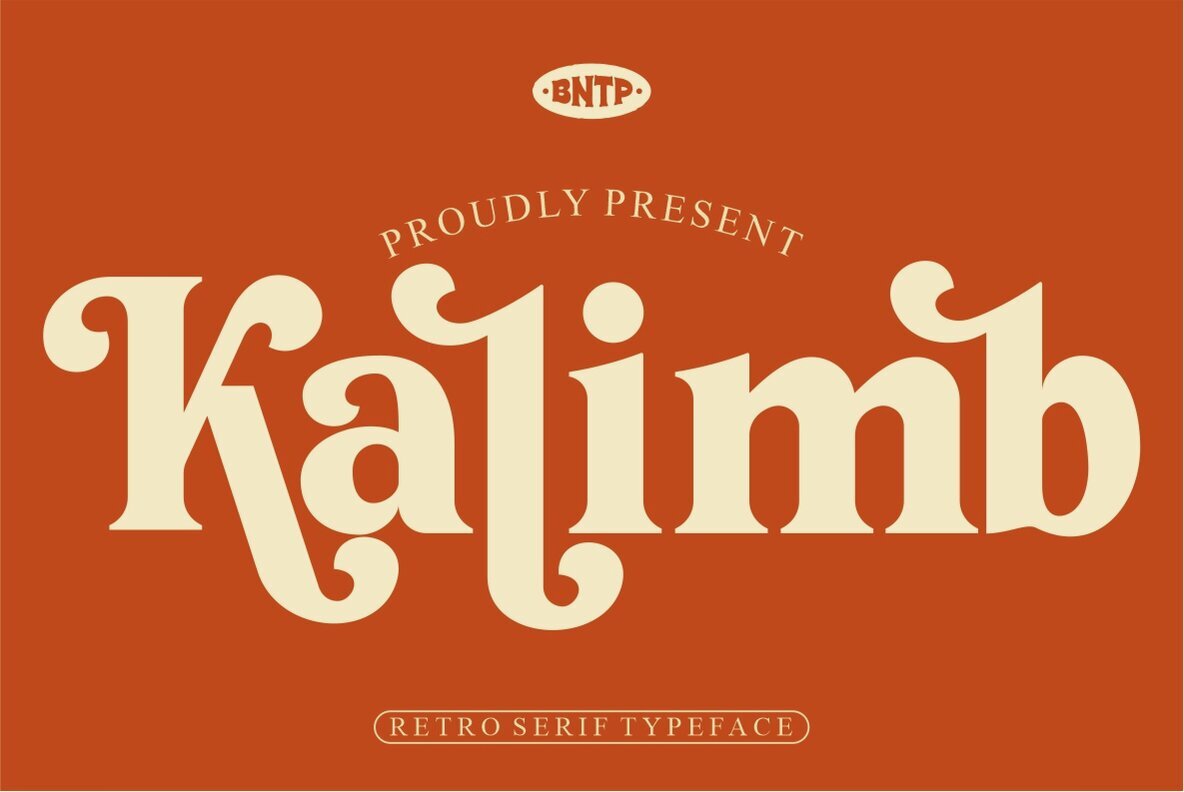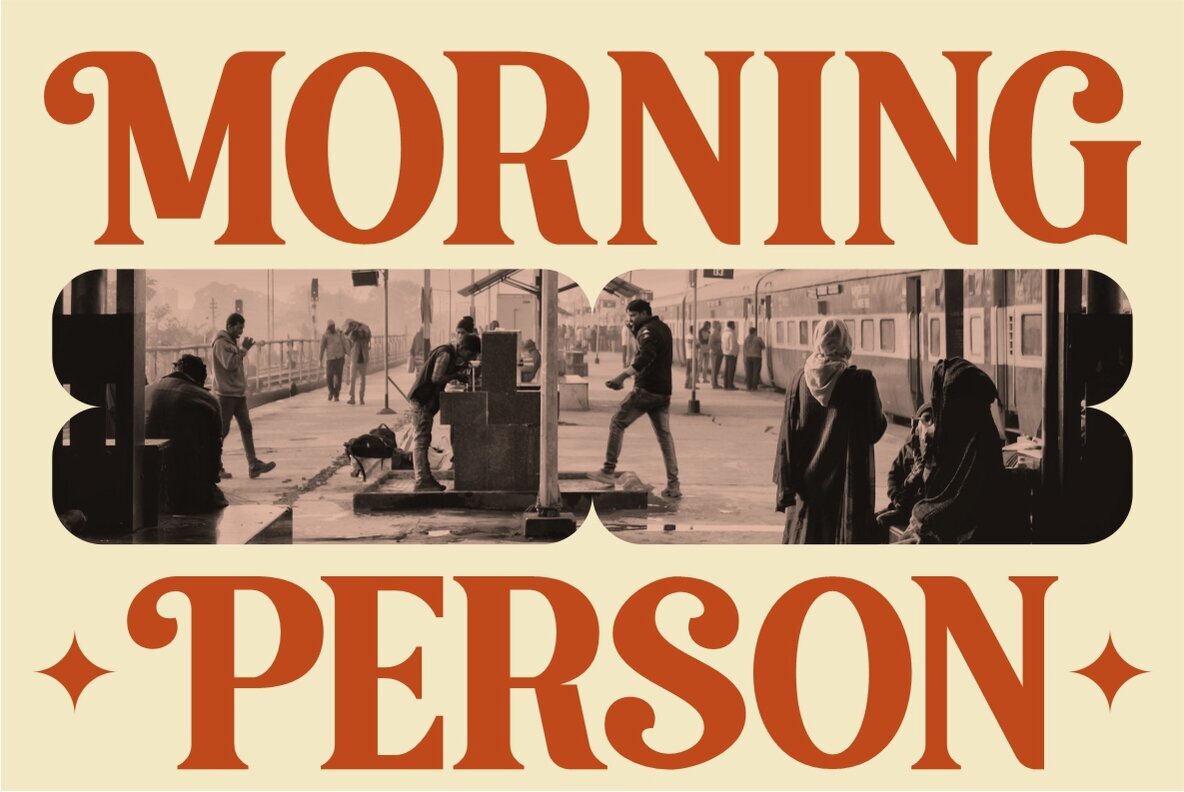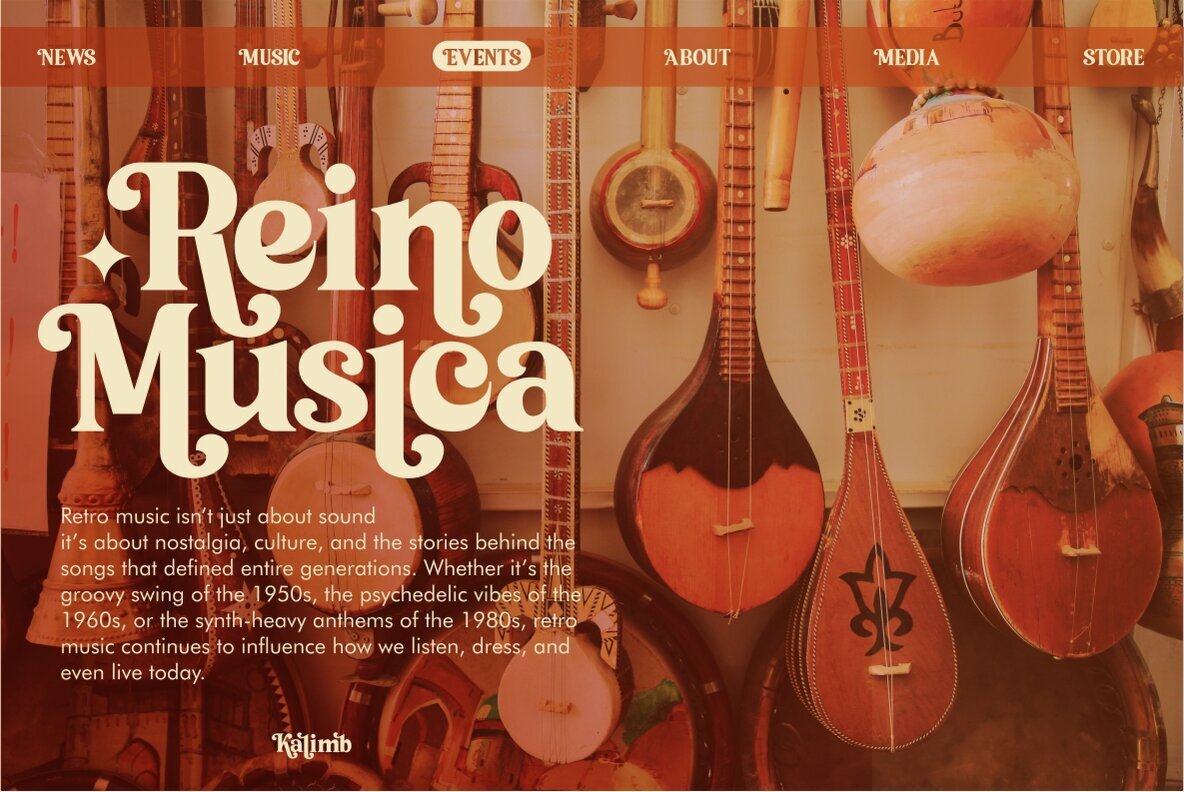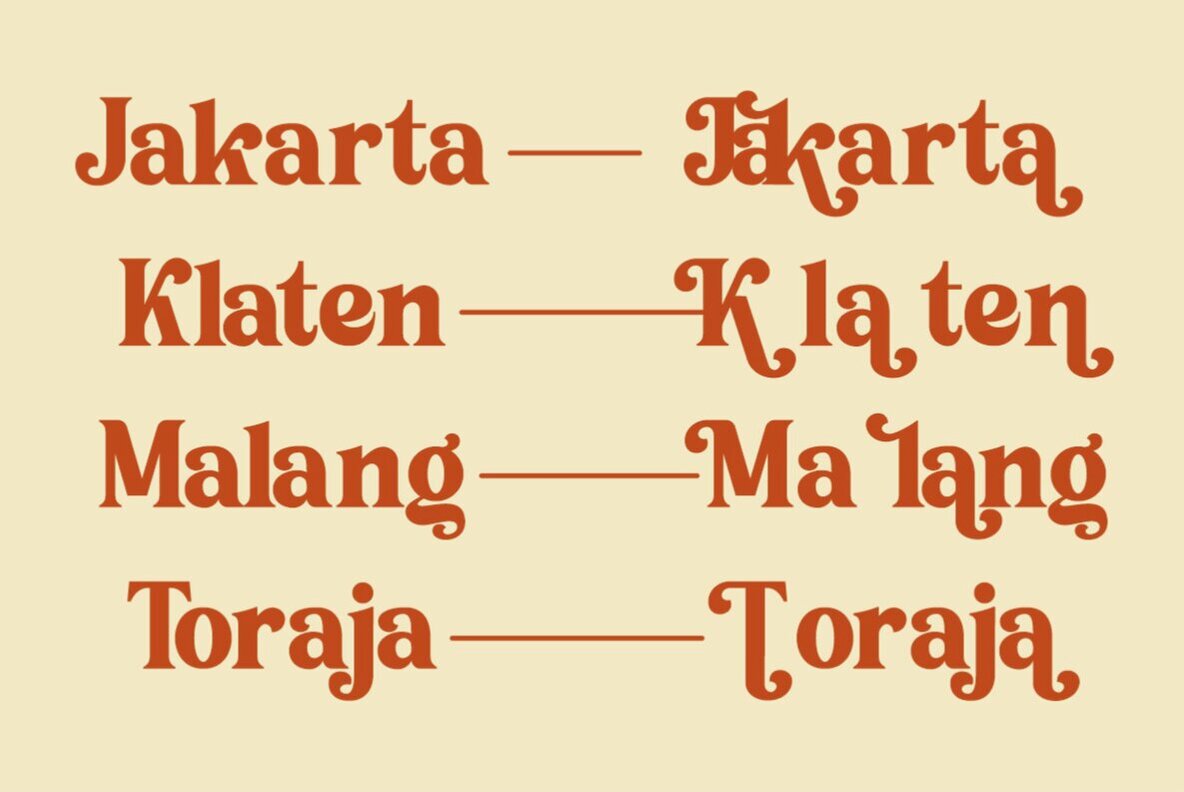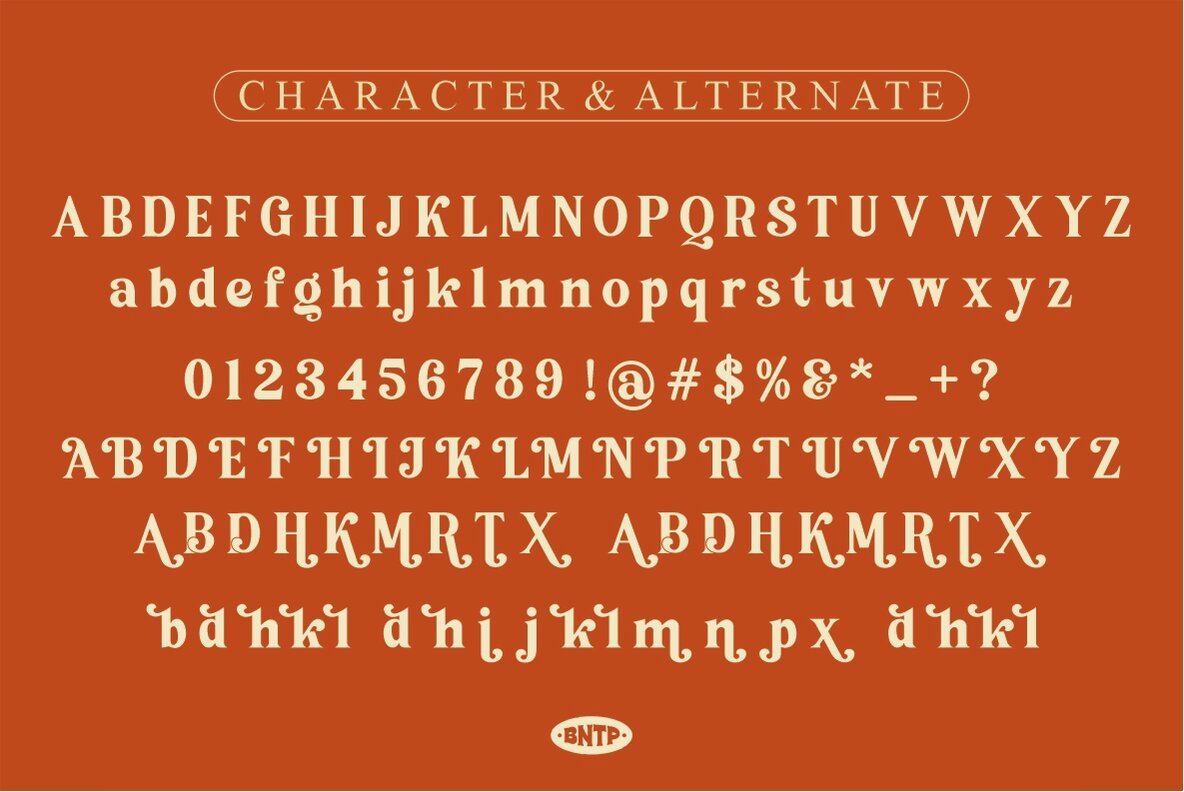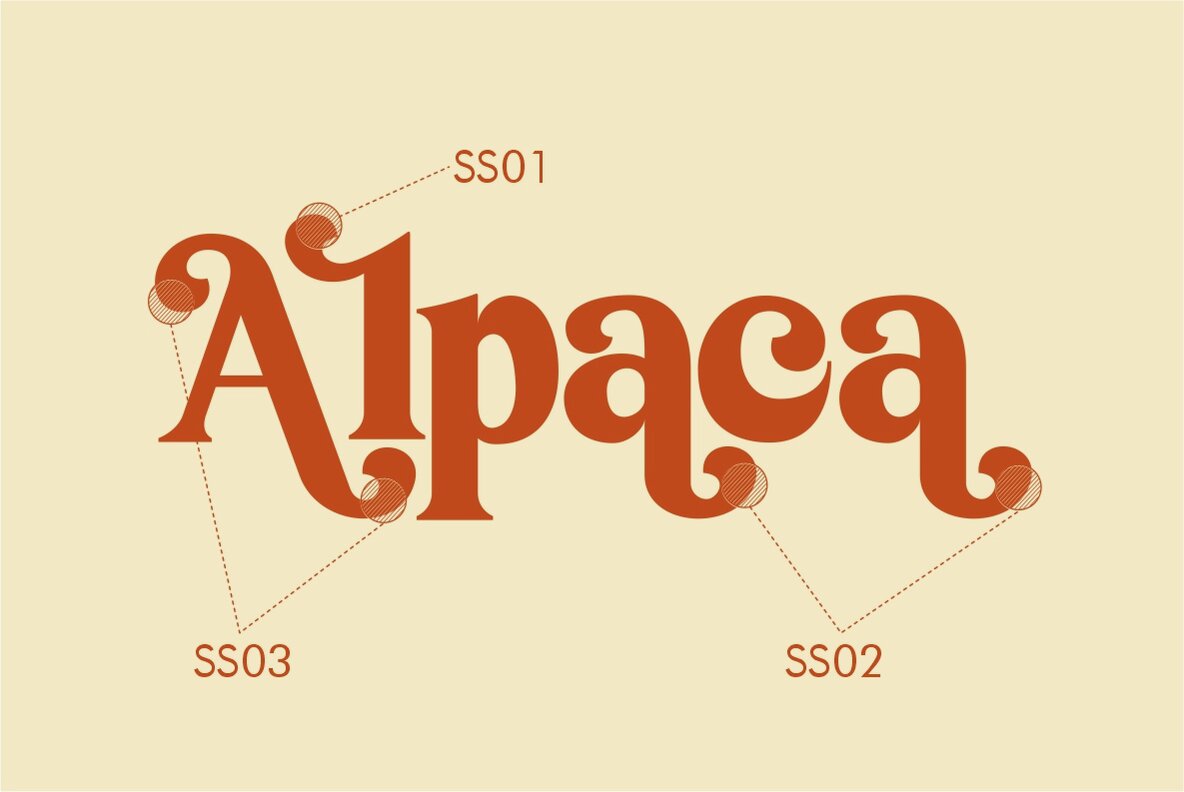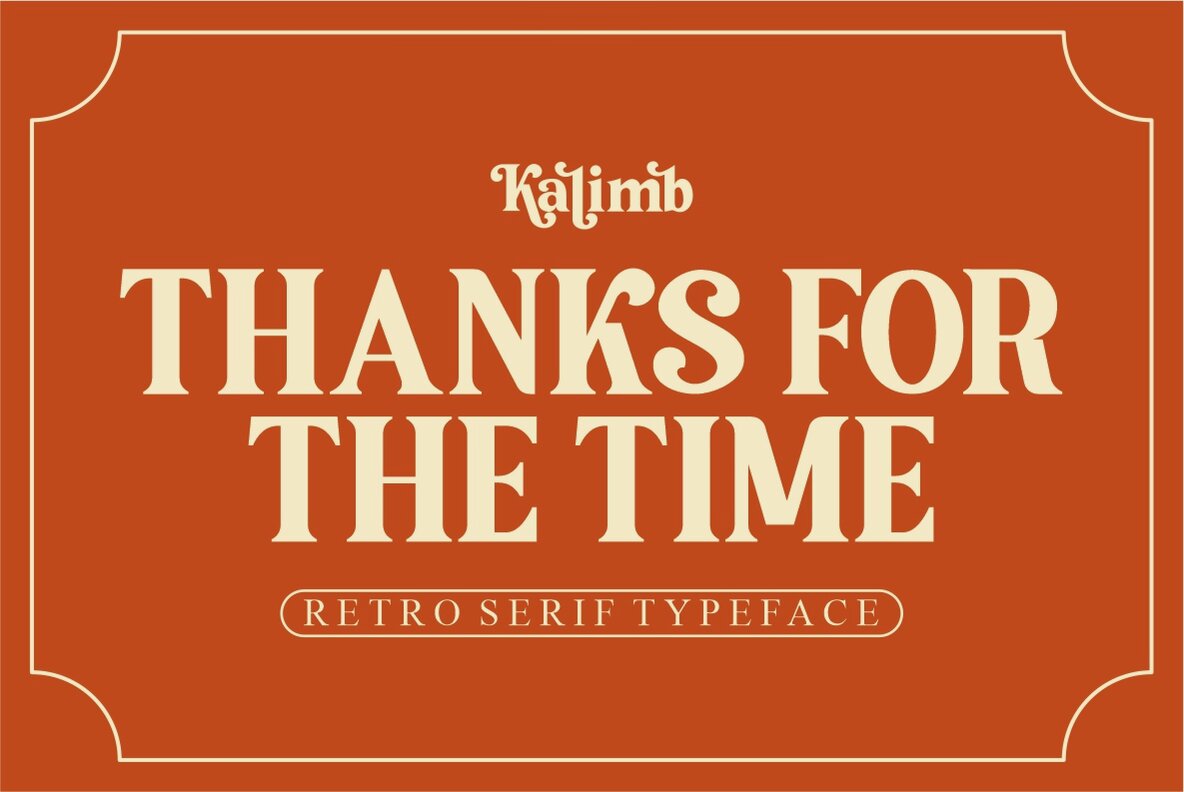
Kalimb Font
Kalimb
Step into a world where retro elegance meets cultural diversity with Kalimb, a serif font that exudes a distinct blend of classic charm and modern flair. Designed with inspiration from global cultures, Kalimb’s refined letterforms and sophisticated serif details evoke a sense of timelessness. It's a font that celebrates heritage while maintaining a contemporary edge, making it a versatile choice for various creative endeavors. With its ability to capture attention and convey elegance, Kalimb is an excellent asset for any design project aiming to highlight cultural diversity with style and grace.Kalimb: Embrace a Retro Elegance